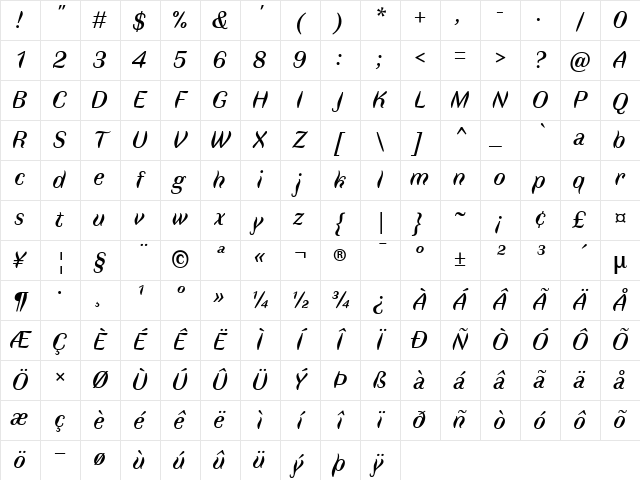
Faune Text Italic
Foundry: Centre national des arts plastiques
Designer: Alice Savoie
Design Context for Faune Text
Faune Text is a composed and adaptable typeface that performs quietly and consistently across a wide range of design contexts. The slanted form adds forward momentum and visual energy.
Pro Tip: Use Faune Text for emphasis, pull quotes, and subheadings where its slanted energy can add rhythm to the layout.